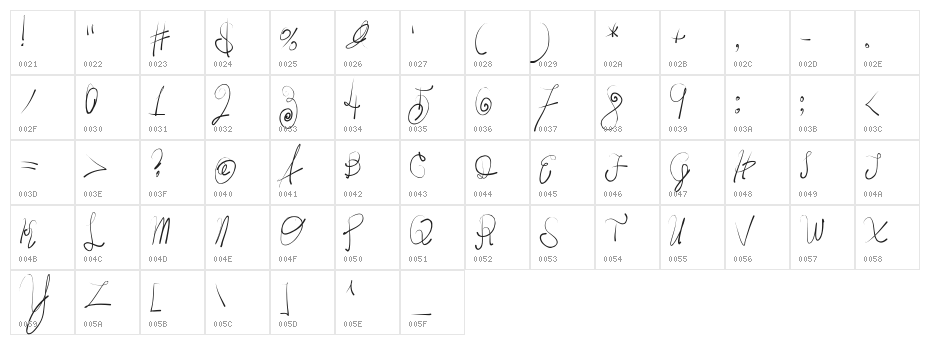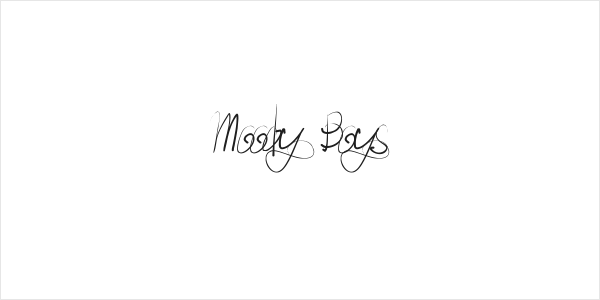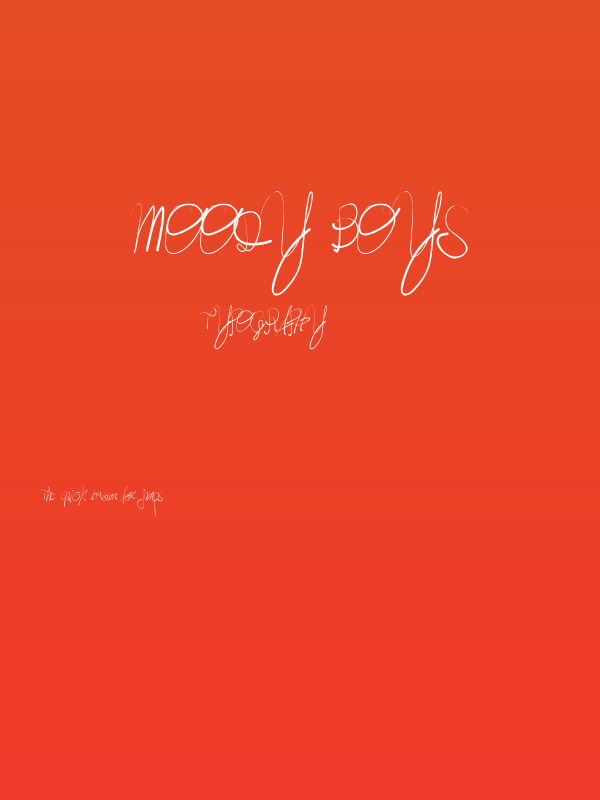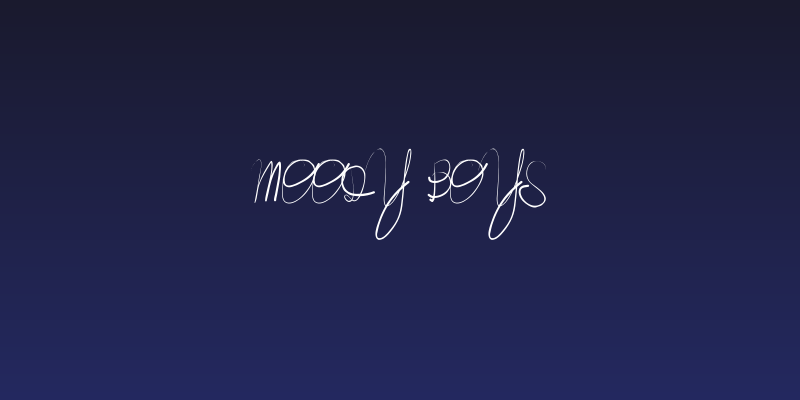
Moody Boys Font
Moody Boys Description
This font exhibits a whimsical and artistic flair, characterized by its flowing, cursive script style. The letters are interconnected with elegant loops and swirls, giving it a dynamic and lively appearance. The uppercase and lowercase letters maintain a consistent fluidity, while the numbers and special characters incorporate playful spirals and curves. This font is ideal for creative projects that require a touch of sophistication and uniqueness. Its distinctive style makes it stand out, perfect for capturing attention and conveying a sense of elegance and creativity.